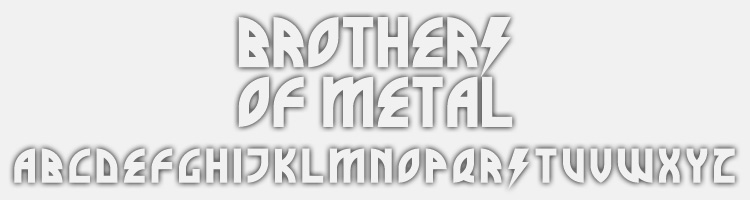
Font name: | Brothers of Metal |
Author: | defaulterror |
Note by defaulterror | |
After creating Super Befok I was listening to Manowar. Being a fan of the Kingdom of Steel I was inspired to make an edit of the font, dedicating it to the band. MANOWAR |